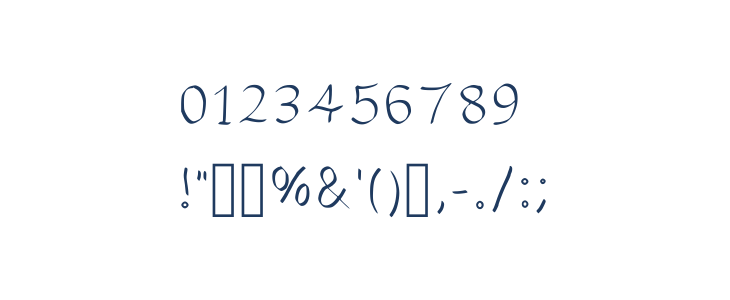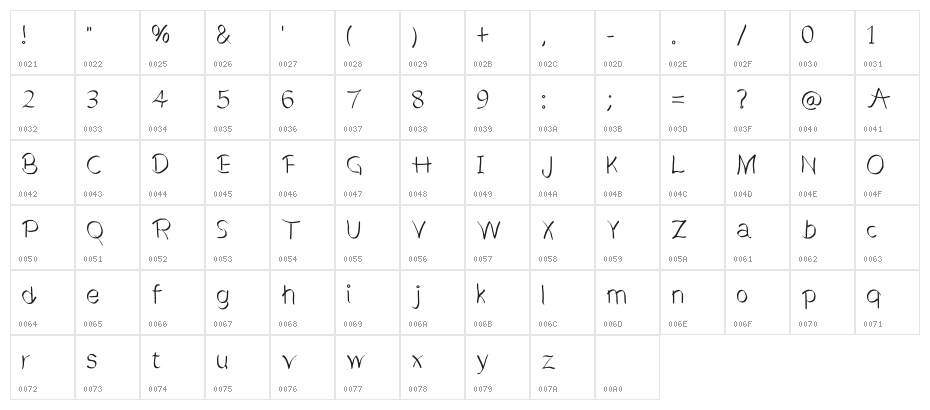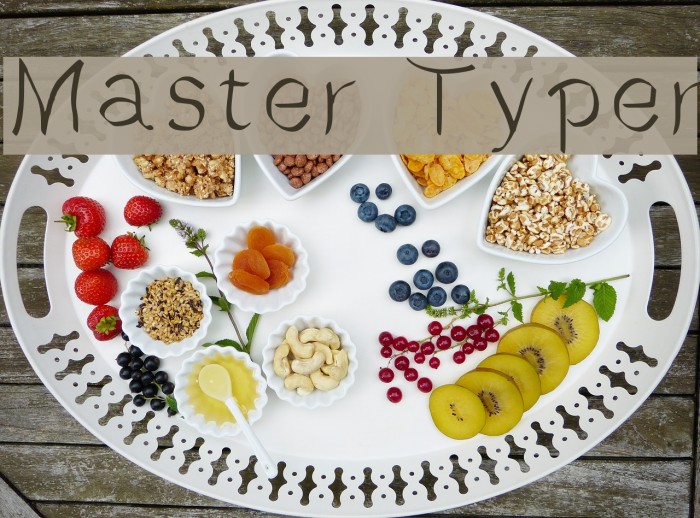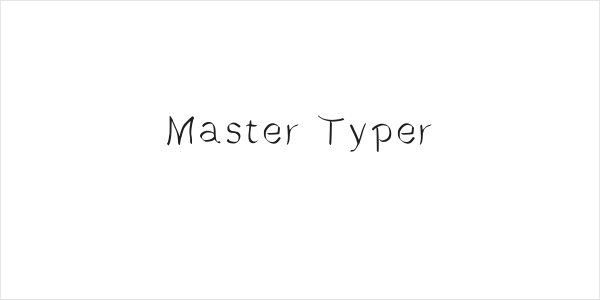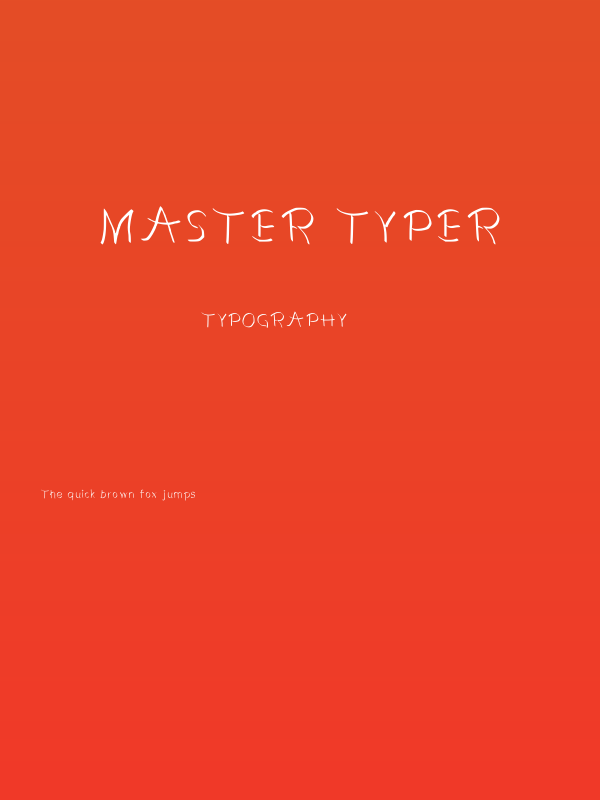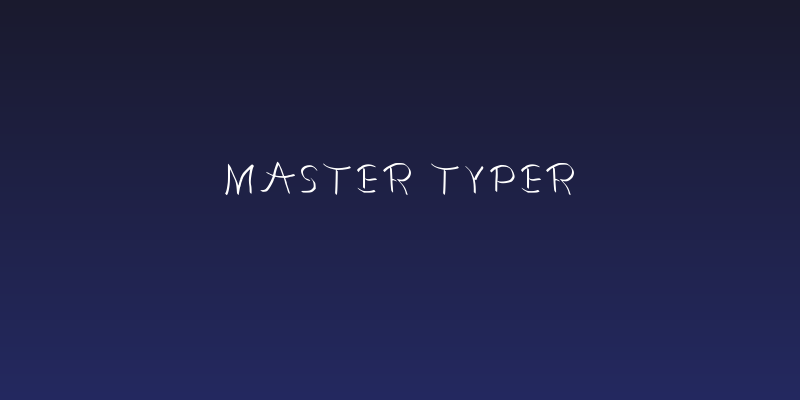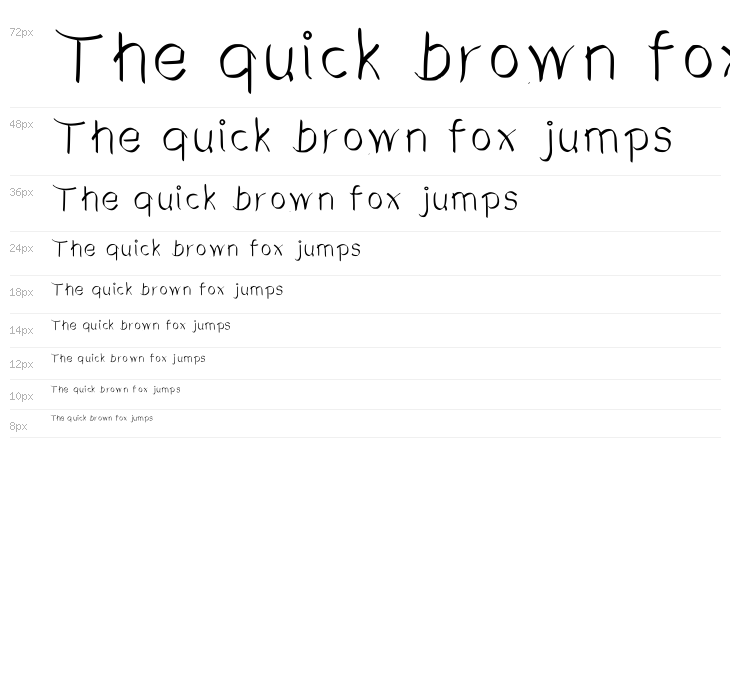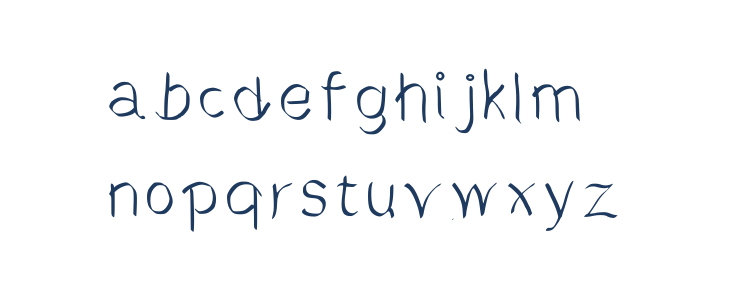
Master Typer Font
Master Typer Description
This font features a unique handwritten style with a playful and artistic flair. The characters are slightly irregular, giving it a personal and casual feel. The uppercase letters have a whimsical touch, with varying line thickness and slight curves that add to its charm. The lowercase letters maintain a consistent style, complementing the uppercase with their own quirky details. Numbers and special characters follow the same artistic approach, making this font versatile for creative projects. Its overall appearance is both modern and expressive, suitable for adding a personal touch to any design.
| Proposed Projects | Ideal for greeting cards, invitations, personal branding, and creative posters. |